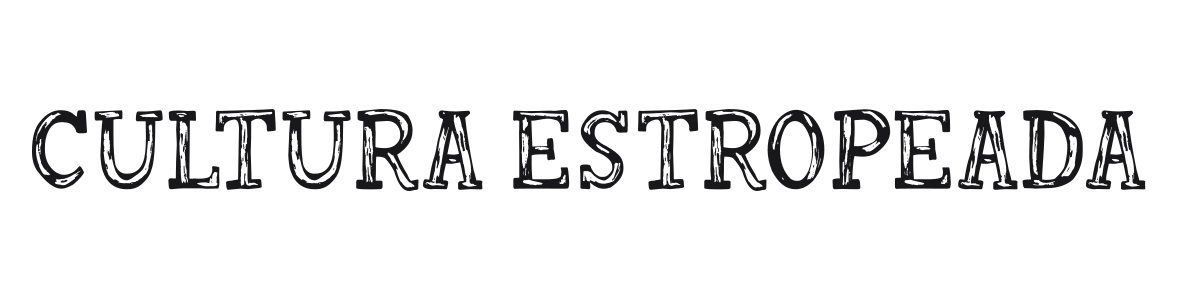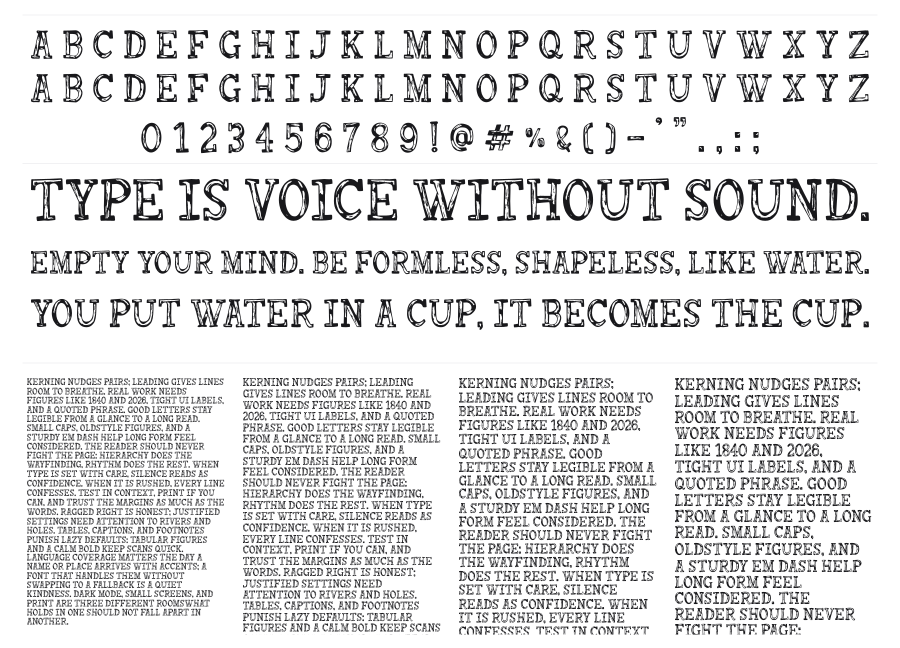
Cultura Estropeada
Cultura Estropeada is a distressed slab serif from Woodcutter that looks like it was printed on crumbling paper with a deteriorating letterpress block. The structured slab proportions keep it legible while the heavy surface erosion gives every character genuine grit. It suits posters, album covers, labels, and any project that needs to feel authentically worn rather than digitally polished.